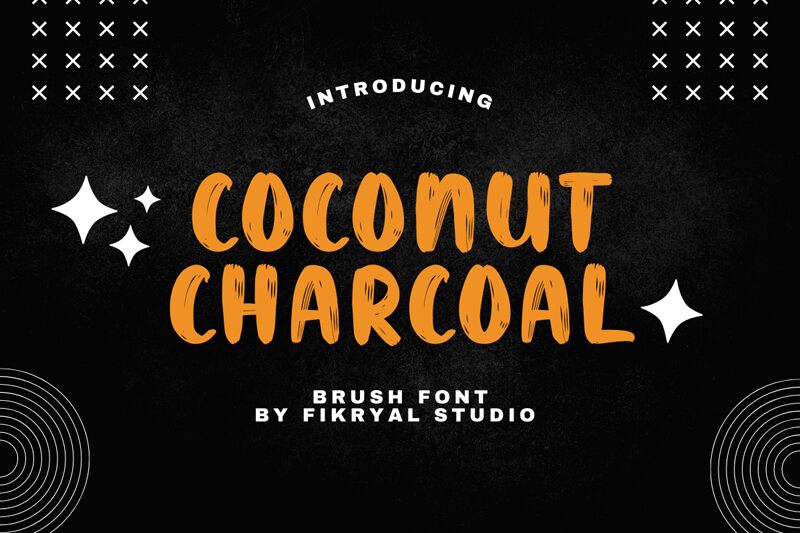
Coconut Charcoal
Coconut Charcoal, designed by Fikryal Studio, exudes an artistic flair with its brush style strokes that evoke a sense of handcrafted authenticity. Bold and expressive, this font captures the raw energy of a painter's brush while maintaining legible forms. Its vigorous texture and dynamic rhythm bring a vibrant, contemporary feel to any piece.
The robust quality of Coconut Charcoal makes it ideal for impactful headlines, branding projects, or any creative endeavor that calls for a touch of informality and originality. Whether on product packaging or in digital media, this font is sure to make a statement and draw attention with its unique blend of casual charm and visual strength.